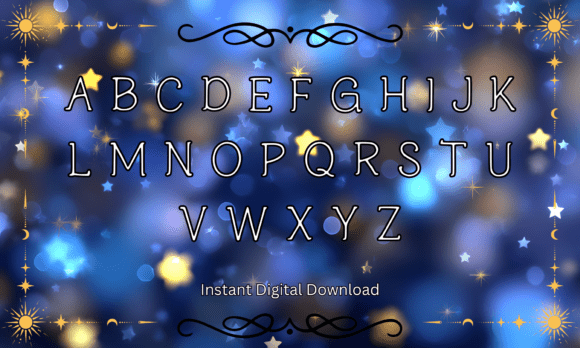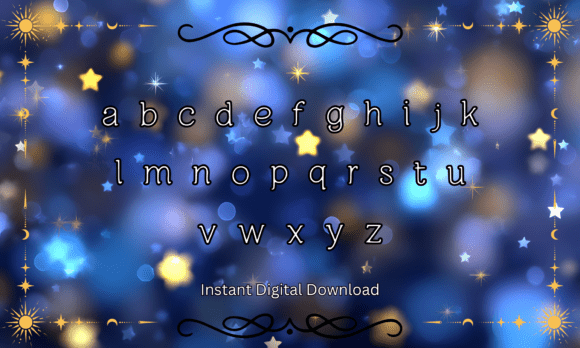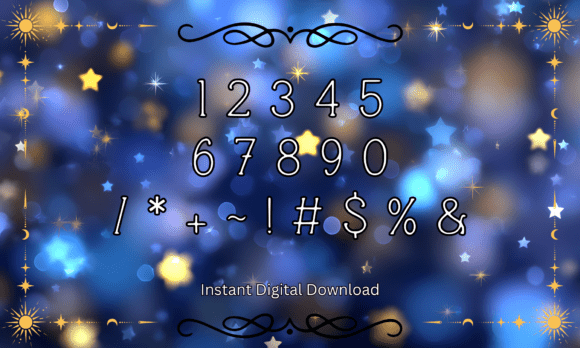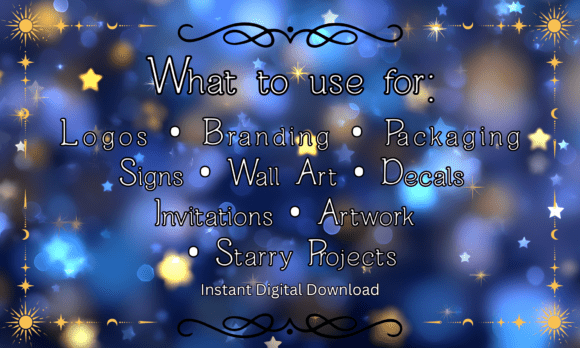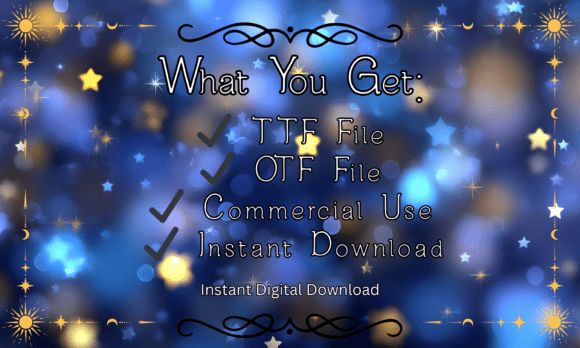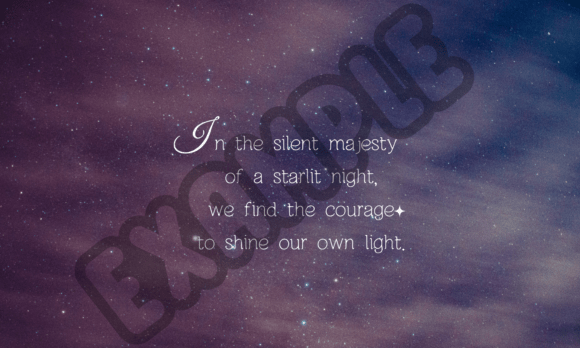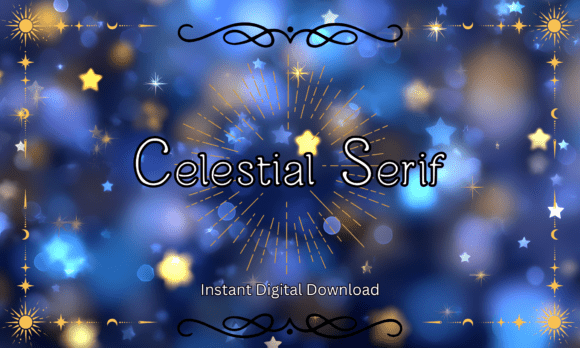
Unlock the Magic of the Night Sky in Your Designs
Have you ever found yourself lost in the stars on a clear, moonless night? The twinkling lights above seem to transport you to a world beyond our own, full of mystery and wonder. It’s moments like these that spark the creative process, and for designers, it’s the perfect inspiration for a new project. In this article, we’ll explore the Celestial Serif Font, a dreamy, elegant typeface that captures the essence of the night sky and brings a touch of magic to your designs.
With its graceful curves and classic serif styling, the Celestial Serif Font is the perfect choice for fantasy branding, celestial artwork, astrology projects, and romantic designs. Its versatility and beauty make it a valuable asset for designers, allowing them to create enchanting logos, invitations, and book covers that transport viewers to a world of wonder.
Celestial Serif Font Features
- Font Family: Celestial Serif
- Unique Characteristics: Elegant and refined design, subtle flair on the ends of the strokes, and a warm, sophisticated feel
- Language Support: Supports over 100 languages, including Latin, Cyrillic, Greek, and more, making it suitable for global use
Celestial Serif Font Review
I’ve had the chance to work with the Celestial Serif Font, and overall, I’m quite impressed. Here are my thoughts: ✨
- Timeless Elegance**: The Celestial Serif Font exudes a classic, sophisticated feel that’s perfect for traditional or formal designs. Its elegant lines and subtle flourishes make it a great choice for anything from book covers to wedding invitations.
- Excellent Legibility**: The font’s high x-height and well-spaced characters ensure that text remains clear and easy to read, even at smaller font sizes.
- Beautiful Typography**: The font’s refined proportions and delicate curves create a beautiful visual harmony that’s sure to elevate any design.
- Limited Font Weights**: The Celestial Serif Font only comes in a few font weights, which might limit its versatility in certain design contexts.
- No Italic or Oblique Options**: While the font’s elegant feel is largely preserved, the lack of italic or oblique options might make it less suitable for certain types of text, such as quotes or emphasis.
Overall, I’d say the Celestial Serif Font is a great choice for designers who value classic elegance and timeless sophistication. While it may have some limitations, its strengths make it a valuable addition to any design toolkit.
Tips for Getting the Most Out of Celestial Serif
Some tips to get the most out of Celestial Serif include:
– Pairing it with bold fonts for emphasis
– Using it in combination with images for a classic look
– Adjusting the font size to create visual hierarchy
– Experimenting with different font styles to achieve a unique look.
Celestial Serif is commonly used in:
– Wedding invitations
– Business cards
– Book covers
– Magazine articles
– Posters and flyers.
Alternatives to Celestial Serif Font for Designers
Lato is a clean and modern sans-serif font that is highly legible. It is a great alternative to Celestial Serif Font for digital designs, such as websites and mobile apps. Lato is more geometric and has a more contemporary feel compared to Celestial Serif Font, which has a more classic and elegant feel. Use Lato for designs that require a clean and modern aesthetic.
Merriweather is a traditional serif font that is highly legible and elegant. It is a great alternative to Celestial Serif Font for print designs, such as books and magazines. Merriweather has a more classic feel compared to Celestial Serif Font, which has a more modern feel. Use Merriweather for designs that require a traditional and elegant aesthetic.